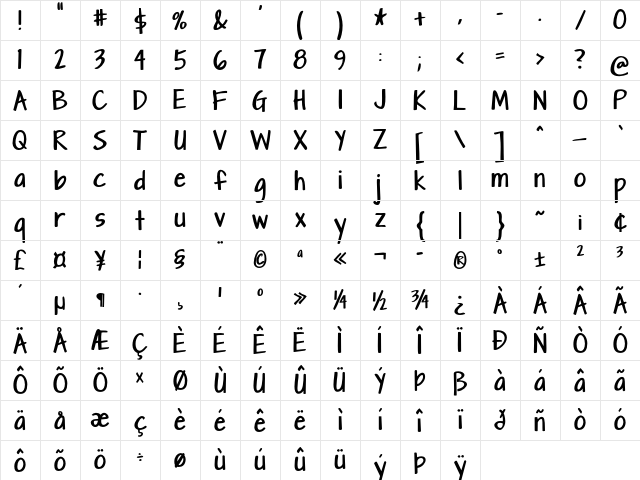
Lolliplop Condensed Bold
Style: Condensed Bold
Lolliplop Family
Lolliplop Condensed Bold
Complete Lolliplop Condensed Bold glyph index. Displaying only characters natively supported by Lolliplop Condensed Bold font.
Design Context for Lolliplop
Lolliplop is a composed and adaptable typeface that performs quietly and consistently across a wide range of design contexts. Its bold stroke weight gives it real presence on the page. Its narrow stance lets it pack a punch even in space-constrained designs.